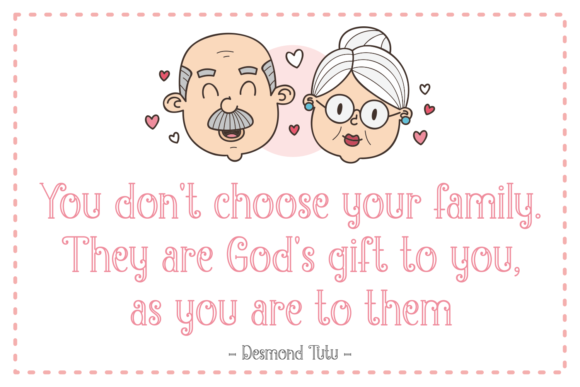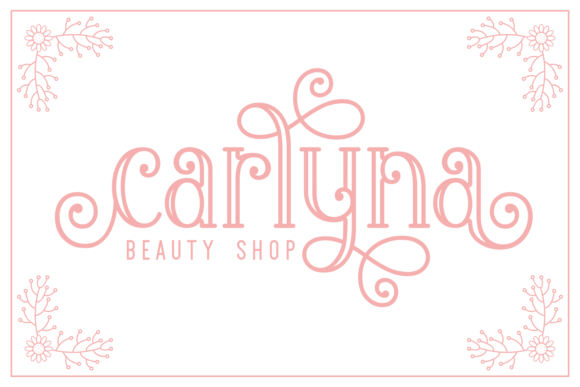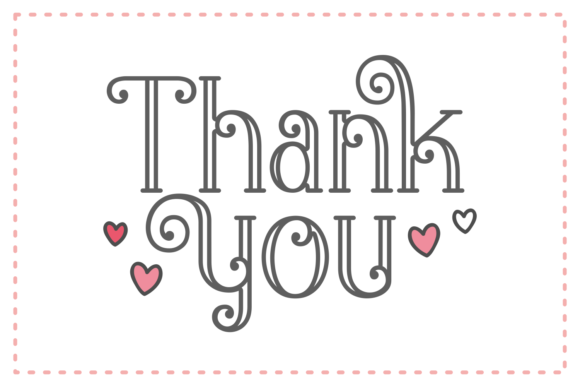
Introducing Calysa Font: The Ultimate Playful Display Font for Creative Designs
Are you a designer or crafter looking for a unique and playful font to add a personal touch to your creative projects? Look no further than Calysa Font! This stunning display font is perfect for adding a handwritten touch to wedding invitations, thank you cards, quotes, greeting cards, logos, business cards, and more.
What Makes Calysa Font So Special?
Calysa Font is an incredibly unique and playful display font that stands out from the crowd. Its distinctive style is perfect for designers and crafters who want to add a personal and creative touch to their work. Whether you’re designing a wedding invitation or a business card, Calysa Font is sure to make your project stand out.
Calysa Font is versatile and can be used for a wide range of design projects, including:
- Wedding invitations: Add a touch of elegance and whimsy to your wedding invitations with Calysa Font.
- Thank you cards: Show your appreciation with a personal touch using Calysa Font.
- Quotes: Make your quotes stand out with a unique and playful font.
- Greeting cards: Add a personal touch to your greeting cards with Calysa Font.
- Logos: Create a memorable logo with Calysa Font that reflects your brand’s personality.
- Business cards: Stand out from the competition with a unique and creative business card design using Calysa Font.
Calysa Font is PUA (Private Use Area) encoded, which means you can access all of the glyphs and swashes with ease. This makes it simple to customize your designs and add a personal touch. With PUA encoding, you can:
- Access a wide range of glyphs and swashes to add variety to your designs.
- Easily customize your designs to fit your brand’s style.
- Save time and effort by having all the tools you need at your fingertips.
Why Choose Calysa Font?
There are many reasons why Calysa Font is the perfect choice for designers and crafters. Here are just a few:
- Unique and playful style: Calysa Font is unlike any other font on the market.
- Versatile: Use Calysa Font for a wide range of design projects.
- Easily customizable: With PUA encoding, you can access all of the glyphs and swashes with ease.
- High-quality: Calysa Font is designed to be clear and legible, even at small sizes.
Tips for Using Calysa Font
Here are a few tips for using Calysa Font in your designs:
- Experiment with different sizes and styles to find the perfect look for your project.
- Use Calysa Font to add a personal touch to your designs, such as in headings or titles.
- Pair Calysa Font with other fonts to create a unique and interesting contrast.
Calysa Font is an incredibly unique and playful display font that is perfect for designers and crafters looking to add a personal touch to their creative projects. With its PUA encoding and wide range of glyphs and swashes, Calysa Font is the perfect choice for a variety of design projects. Whether you’re designing a wedding invitation or a business card, Calysa Font is sure to make your project stand out.